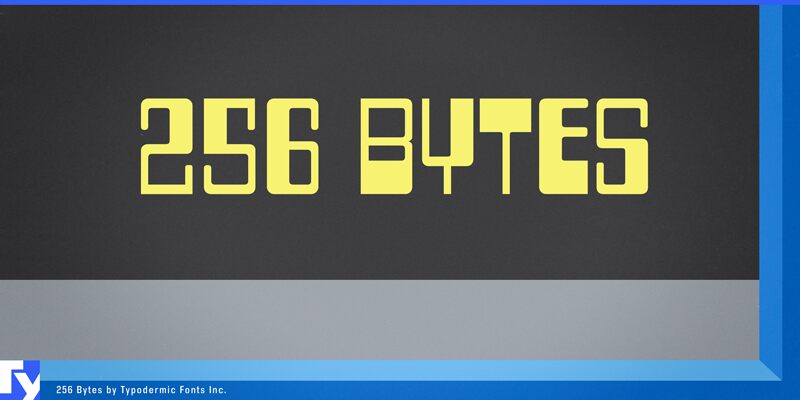
TwoFiftySixBytes-Regular
256 Bytes is a font I created in the late 1990s based on the logotype of the MITS Altair 8800 personal computer. It appears behind Maurice’s desk in series 3 of the British sitcom The IT Crowd. I recently updated the font with OpenType features.